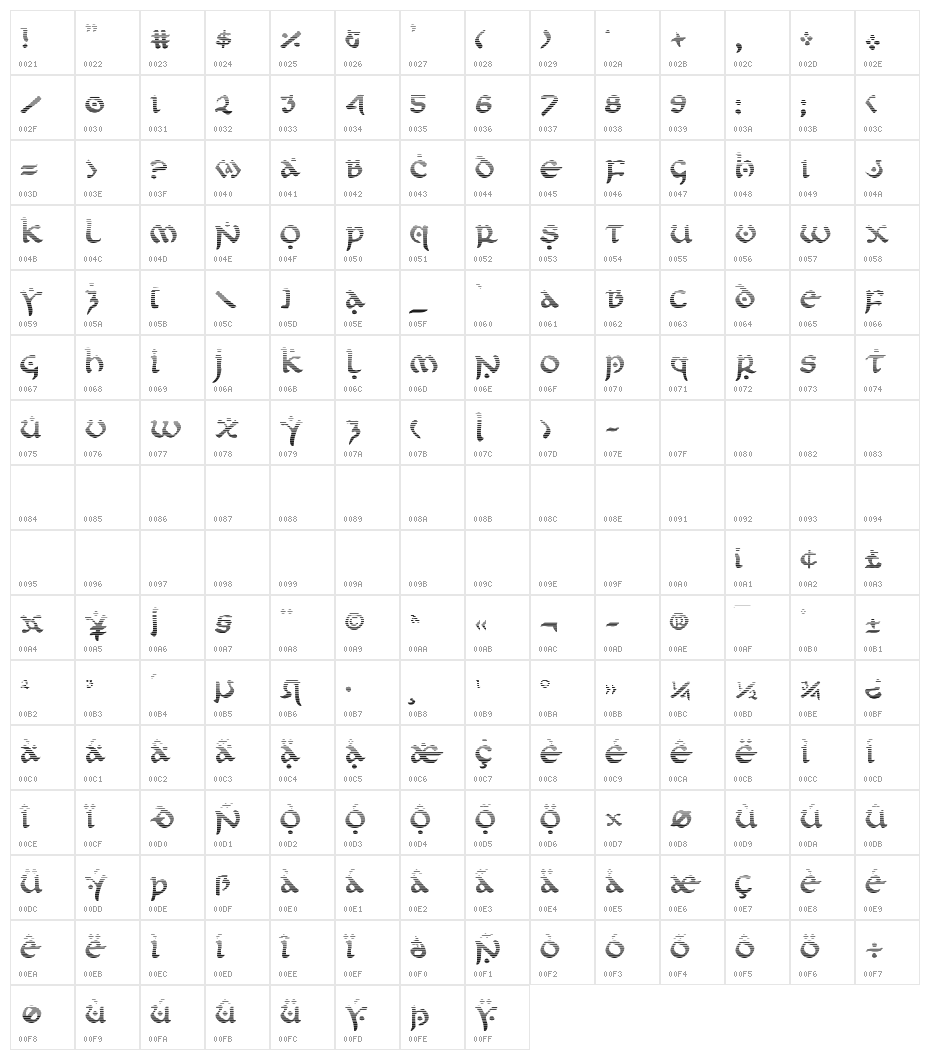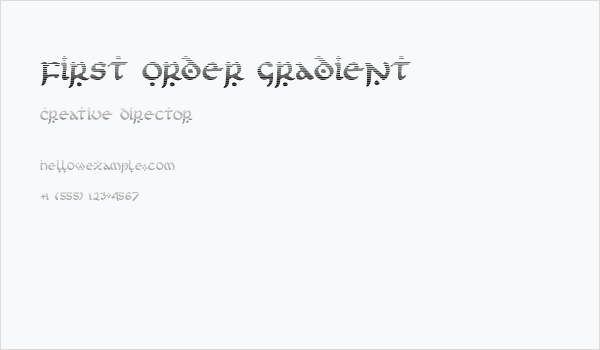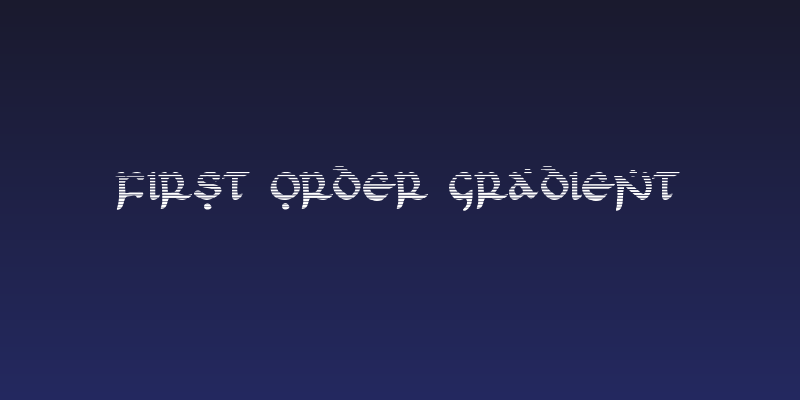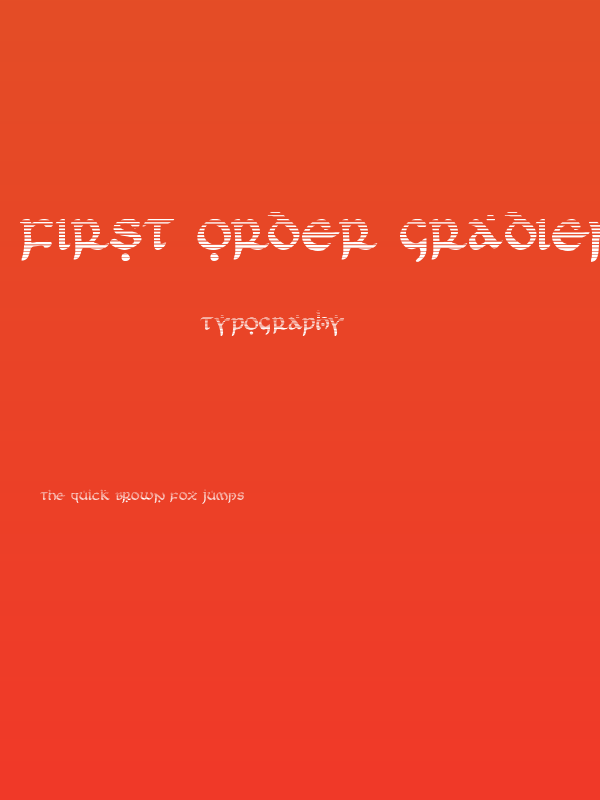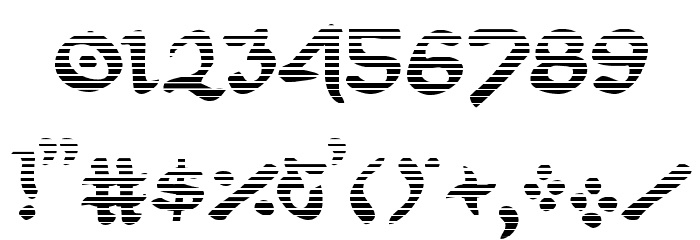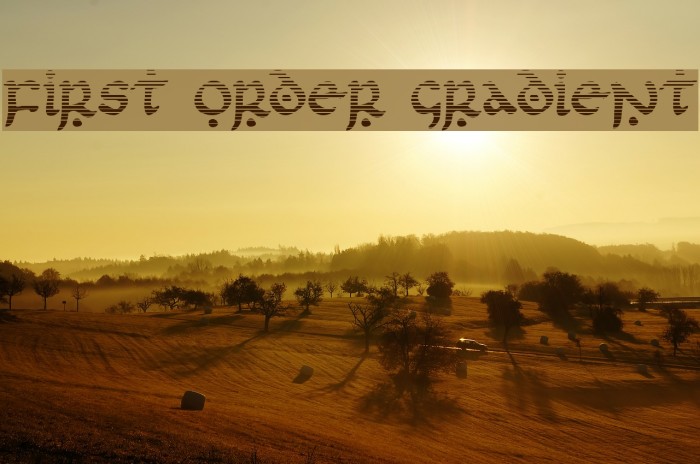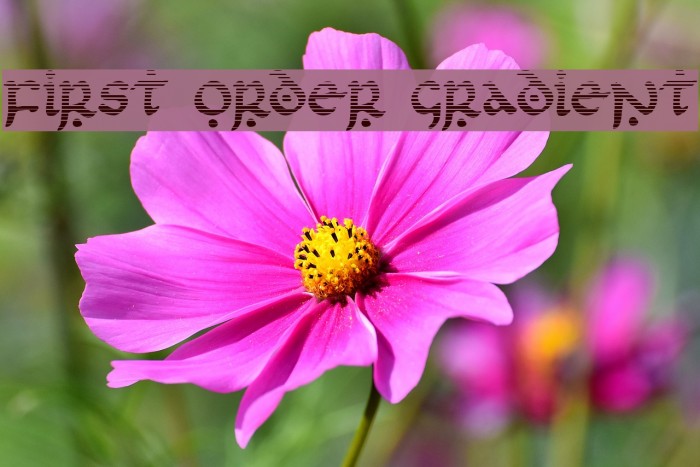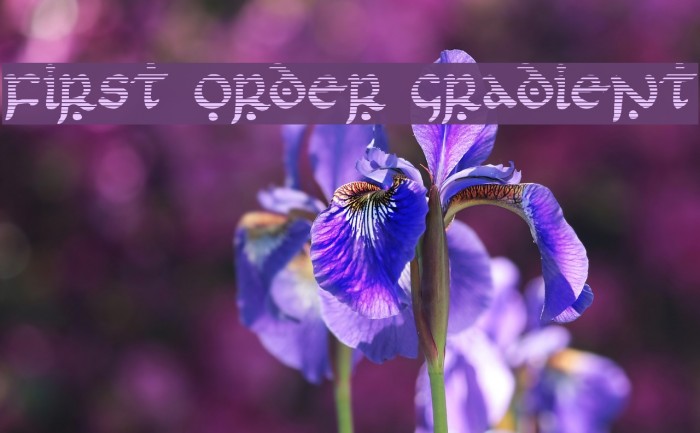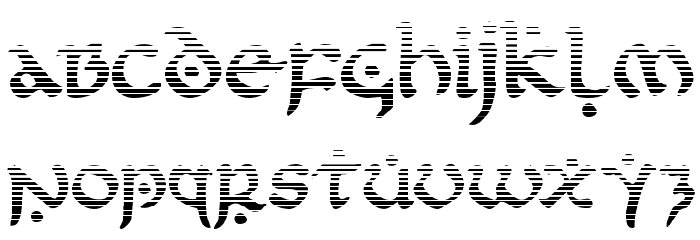
First Order Gradient Font
First Order Gradient Description
This font features a unique design with horizontal stripes cutting through each character, creating a visually striking effect. The characters have a modern, futuristic appearance with a decorative flair. The uppercase and lowercase letters maintain a consistent style, with rounded edges and a bold presence. The numerals and special characters follow the same striped pattern, ensuring uniformity across the font. This design is ideal for projects that require a bold statement and a contemporary look. The font's distinct style makes it suitable for creative and artistic applications, where a touch of modernity and uniqueness is desired.
| Proposed Projects | Ideal for branding, posters, album covers, and digital art projects. |